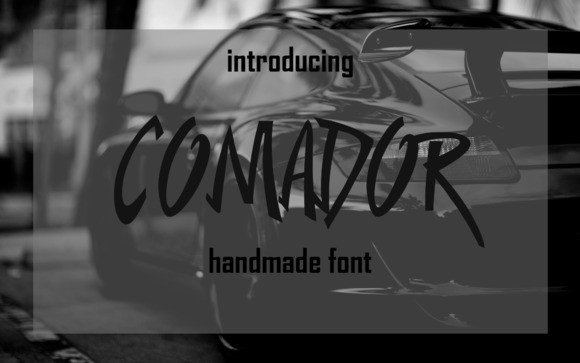
Introducing Comador Font: Elevate Your Designs with a Personal Touch
Are you tired of using the same old fonts for your logo marks, posters, T-shirt designs, and other creative projects? Look no further than Comador Font, a unique and stylish typeface that adds a personal touch to any design. In this article, we’ll explore the features and benefits of Comador Font, and show you how to use it to take your designs to the next level.
What is Comador Font?
Comador Font is a carefully crafted typeface designed to bring a touch of personality to your designs. With its distinctive letterforms and stylish flair, Comador Font is perfect for designers and crafters who want to create unique and eye-catching logos, posters, T-shirt designs, and more.
Key Features of Comador Font
- Unique Letterforms: Comador Font features distinctive letterforms that set it apart from more traditional typefaces.
- Stylish Flair: The font’s stylish flair adds a touch of sophistication and elegance to any design.
- Versatile: Comador Font is perfect for a wide range of design applications, from logo marks and posters to T-shirt designs and more.
Use Comador Font to Create Stunning Designs
Comador Font is incredibly versatile, making it perfect for a wide range of design applications. Here are just a few ideas to get you started:
- Logo Marks: Use Comador Font to create unique and memorable logo marks that set your brand apart.
- Posters: Add a touch of personality to your posters with Comador Font’s stylish letterforms and flair.
- T-Shirt Designs: Create eye-catching T-shirt designs with Comador Font’s distinctive letterforms and stylish flair.
- Social Media Graphics: Use Comador Font to add a personal touch to your social media graphics, from Facebook posts to Instagram stories.
Tips for Using Comador Font
Here are a few tips for getting the most out of Comador Font:
- Experiment with Different Sizes: Comador Font looks great in a variety of sizes, from small and subtle to large and bold.
- Play with Color: Comador Font pairs well with a wide range of colors, so don’t be afraid to experiment and find the perfect combination for your design.
- Combine with Other Fonts: Comador Font pairs well with a variety of other fonts, so feel free to get creative and combine it with other typefaces to create a unique look.
Enjoy the Ride with Comador Font
At the end of the day, Comador Font is all about enjoying the ride and having fun with your designs. With its unique letterforms and stylish flair, Comador Font is the perfect way to add a personal touch to your logo marks, posters, T-shirt designs, and more. So why wait? Download Comador Font today and start creating stunning designs that showcase your personality and style.
In conclusion, Comador Font is a unique and stylish typeface that’s perfect for designers and crafters who want to add a personal touch to their designs. With its distinctive letterforms and stylish flair, Comador Font is versatile, easy to use, and perfect for a wide range of design applications. So why wait? Download Comador Font today and start enjoying the ride!